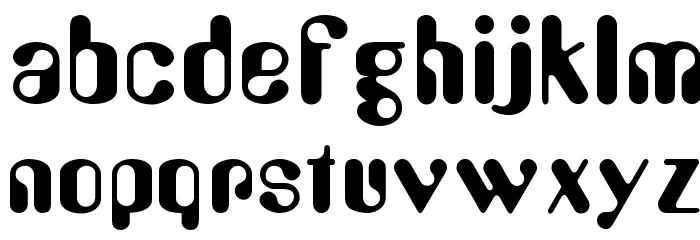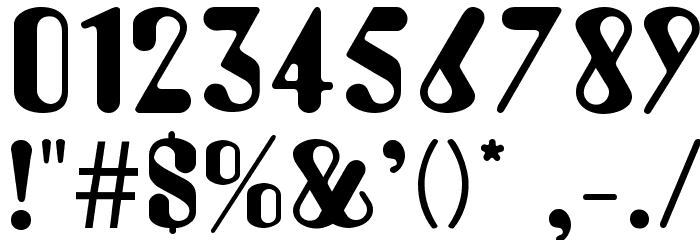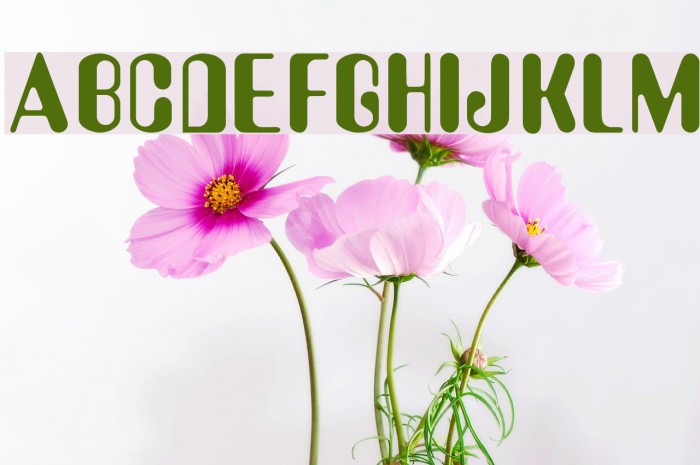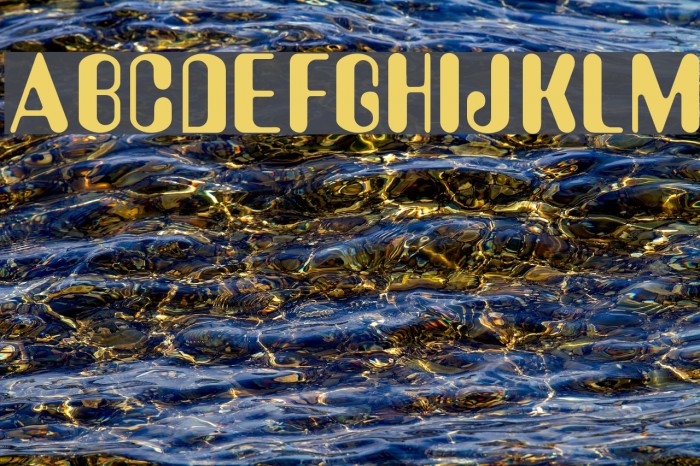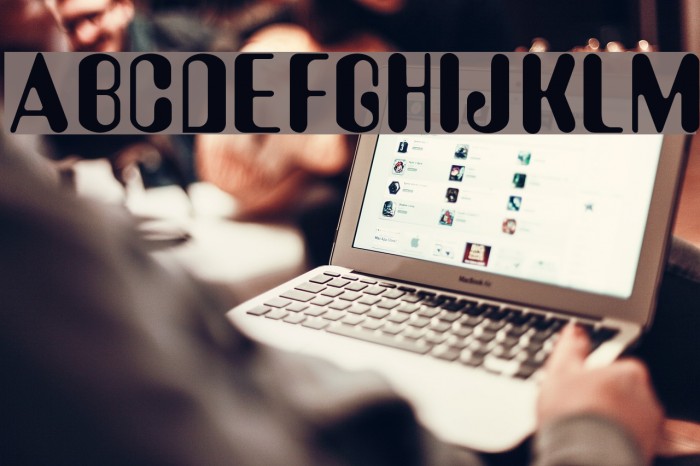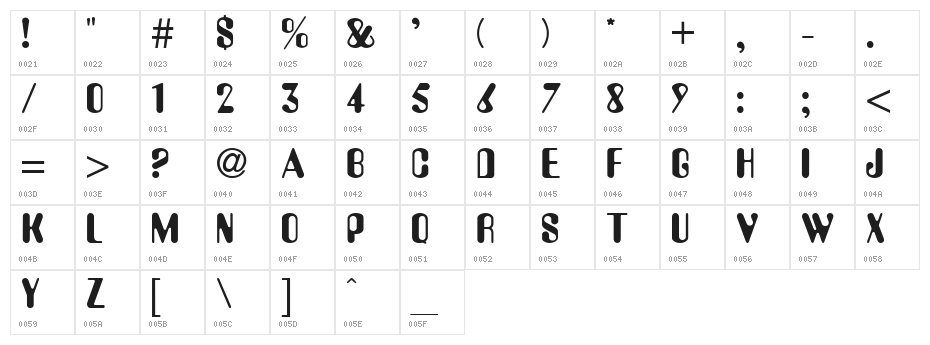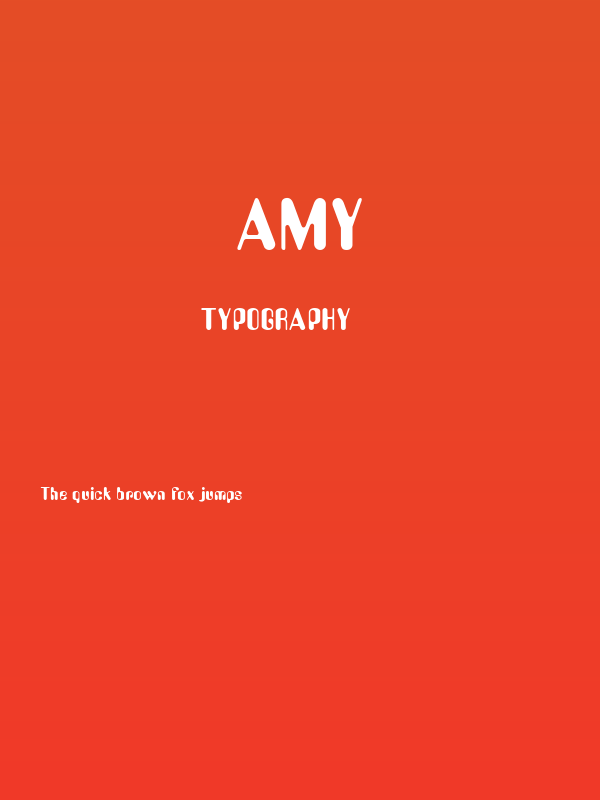
Amy Font
This font features a bold and playful design with rounded edges and a unique, modern flair. The uppercase letters are characterized by their thick strokes and slightly condensed form, giving them a strong presence. The lowercase letters maintain a consistent style, with some characters exhibiting a quirky, almost whimsical touch. The numerals are bold and easily legible, complementing the overall design. Special characters are crafted with the same attention to detail, ensuring they fit seamlessly with the alphabet. The font's distinct style makes it suitable for eye-catching designs.
A bold, playful font with rounded edges and a modern flair.
- Proposed Projects: Ideal for branding, posters, and playful graphic designs.